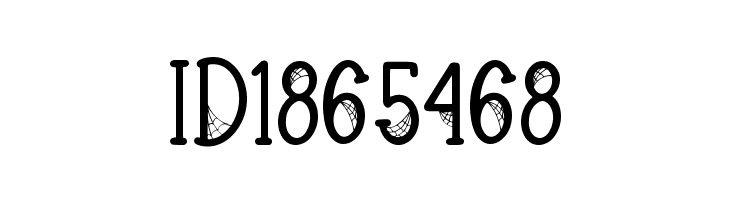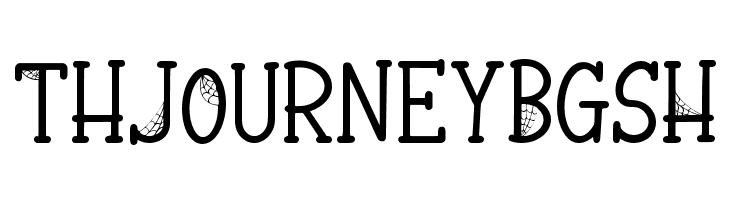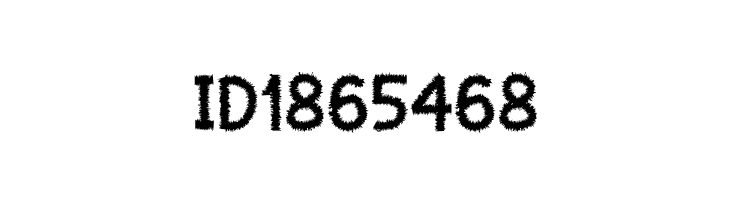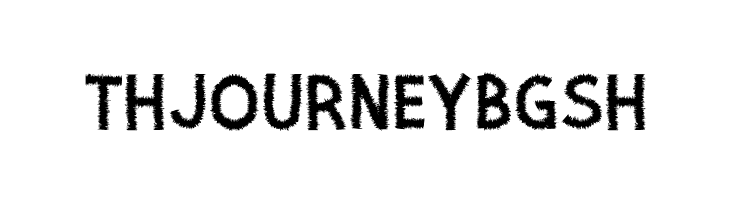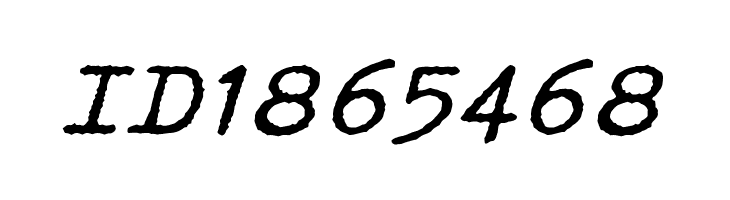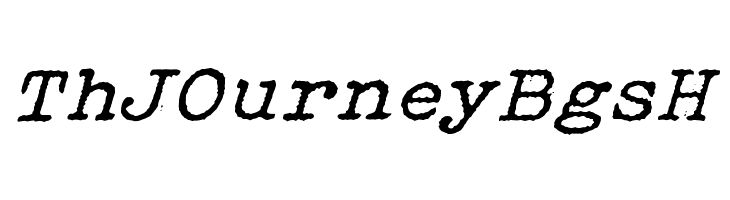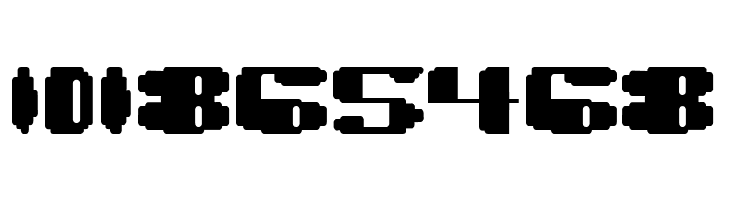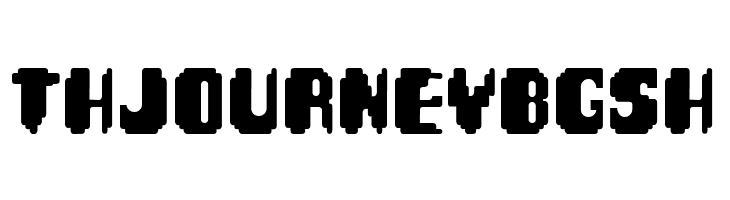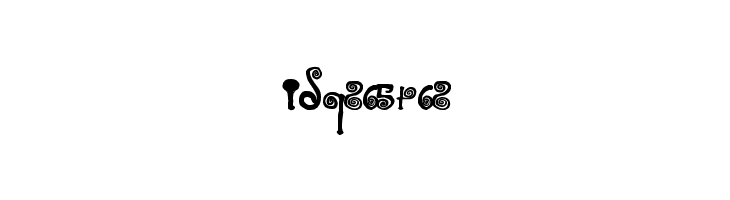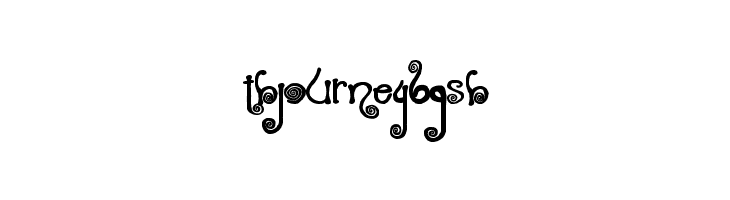
• Speedwriter
A vintage, typewriter-style font with a textured, distressed appearance.
• SPIDER Bold
A bold, futuristic font with angular, modern design elements.
• SPIDER Bold Italic
• SPIDER Italic
A bold, italicized font with a futuristic, angular design.
• Spinal T. FanBoy
Bold, angular font with a distressed texture and geometric influence.
• Spine
A bold, spiky font with a dynamic and edgy appearance.
• Spinner
• Spiraling
• Splatink
A bold, hand-painted style font with dynamic, irregular strokes.
• Spooky Webbie
A playful, cobweb-themed font perfect for Halloween designs.